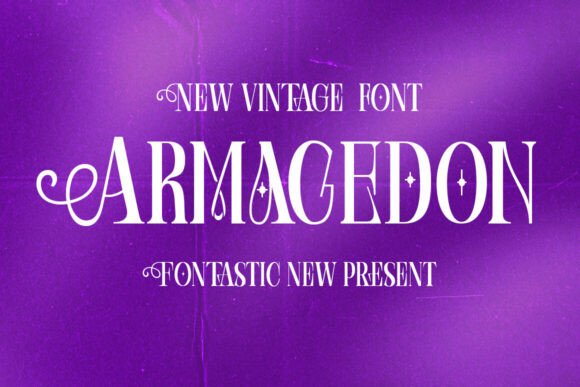
The Armageddon Font: A Retro Revival for Modern Design
I’ll never forget the design project that led me to discover the Armageddon font. I was working on a branding campaign for a music festival, and I needed a font that would capture the essence of a post-apocalyptic world. The festival’s theme was all about survival and resilience, and I wanted a font that would reflect that. After hours of searching, I stumbled upon Armageddon, and it was love at first sight. In this article, I’ll share my experience with this unique font, its features, and how to make the most of it in your designs.
- ✨ Extreme cuts and sharp angles that give it a bold, edgy look
- ✅ Interactive ligatures that add a touch of modernity
- 🔥 Three capitalized subfamilies, each with its own distinct style and personality
- 💯 The bold character separation and considered ligature standards create a solid, modern, and attractive typeface
While Armageddon is an amazing font, there are a few things to keep in mind:
- ⚠️ Some characters may not work well in smaller font sizes due to the intricate design
- 🤔 The font’s bold style can be overwhelming if not used thoughtfully
The Story Behind Armageddon
Armageddon was designed by a team of typographers who wanted to create a font that would capture the essence of a post-apocalyptic world. Inspired by the raw, industrial feel of abandoned buildings and machinery, they set out to create a font that would reflect the resilience and determination of humanity in the face of adversity. The result is a font that’s both bold and beautiful, with a unique personality that’s sure to make your designs stand out.
Q: Is Armageddon suitable for body text?
A: While Armageddon is a beautiful font, it’s best suited for headlines and titles due to its bold, decorative style. For body text, you may want to choose a more legible font.